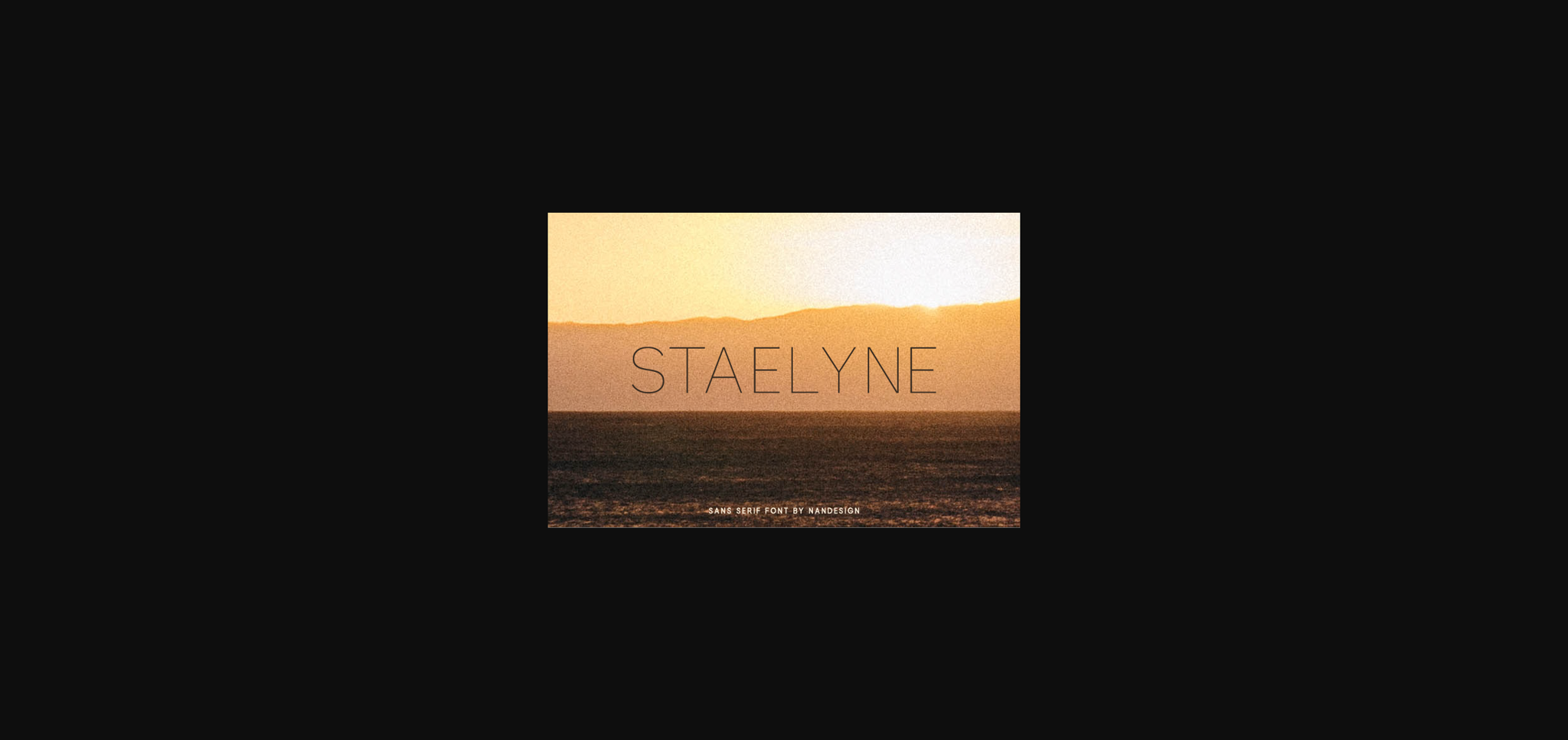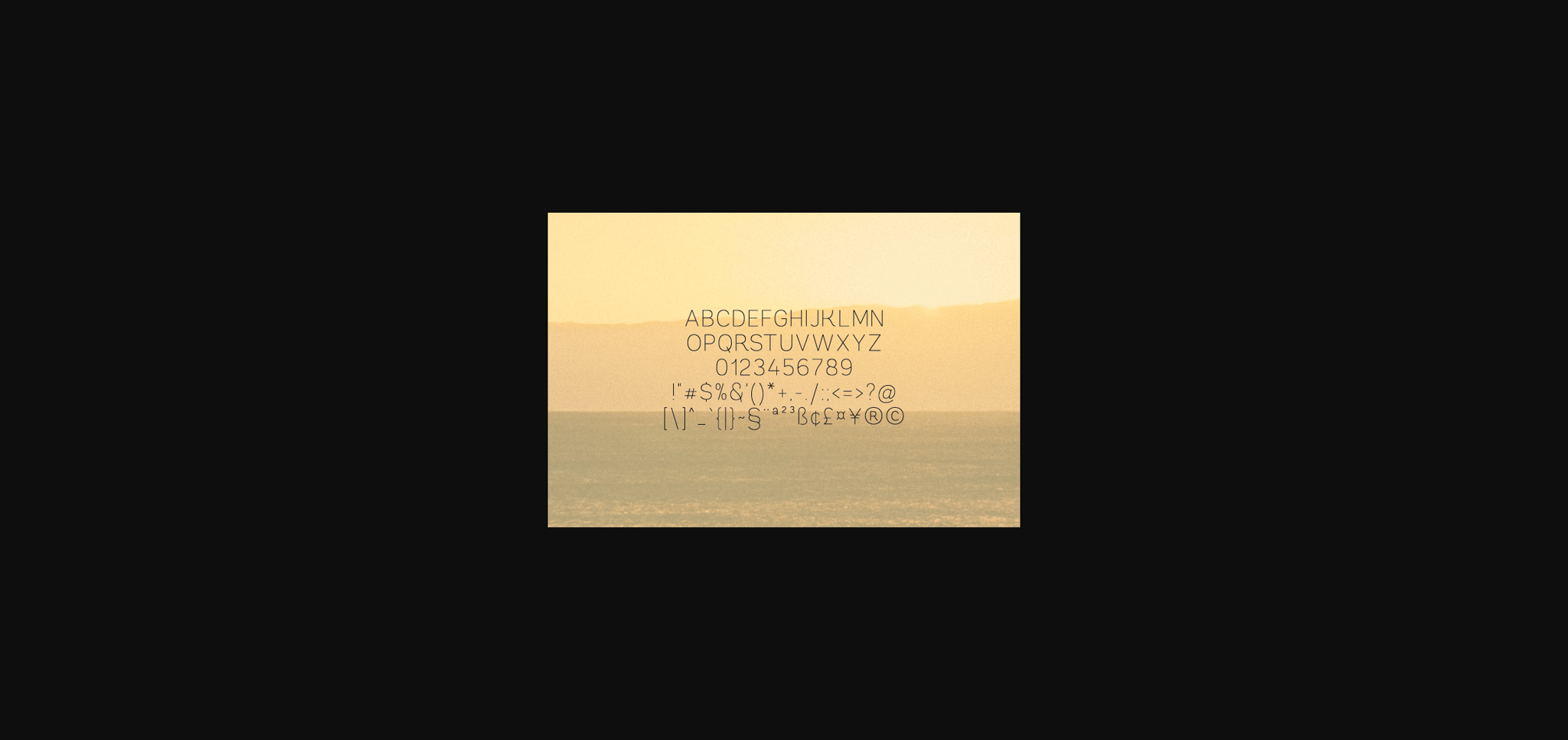
Staelyne Font
About Staelyne Font
Staelyne is a distinct, elegant sans serif font. Its casual charm makes it appear wonderfully down-to-earth, readable and, ultimately, incredibly versatile. Staelyne will look outstanding in any context, whether it’s being used on busy backgrounds or as a standalone headline!